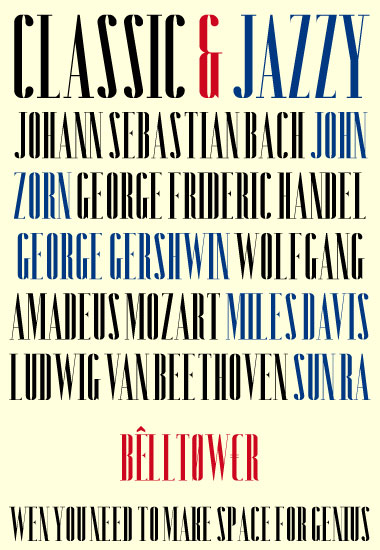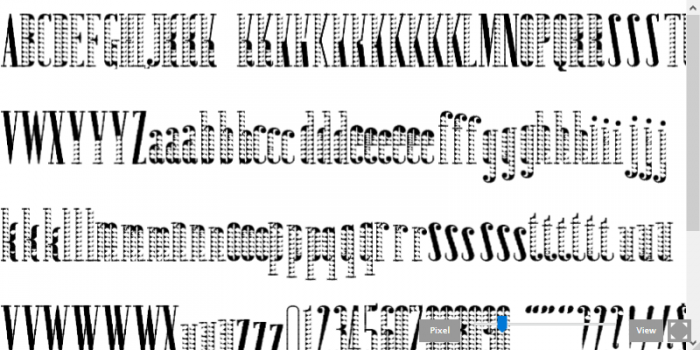
Wow! It's similar to my Rendez-Vous, but much better! Definitely want to see lowercase.
Wow! Very nice glyphs. Keep it up! :)
Beautiful.
This so elegant and beautiful. A definite 10/10
Lovely. Well worth adding some numbers and filling out the punctuation.
Numbers are hard, you know? ;-)
I can't believe this doesn't have any stars yet! You should be very proud of this font. It is so elegant and balanced. It doesn't need numbers that would take a lifetime!
My 10 2U!
I like specially the thin lines. Well done!
Unfortunately, I didn't make it in time for the #serifcomp, but here's a preview of what's coming. When and if I will be able to tame the fontstructor's artistic ambitions...